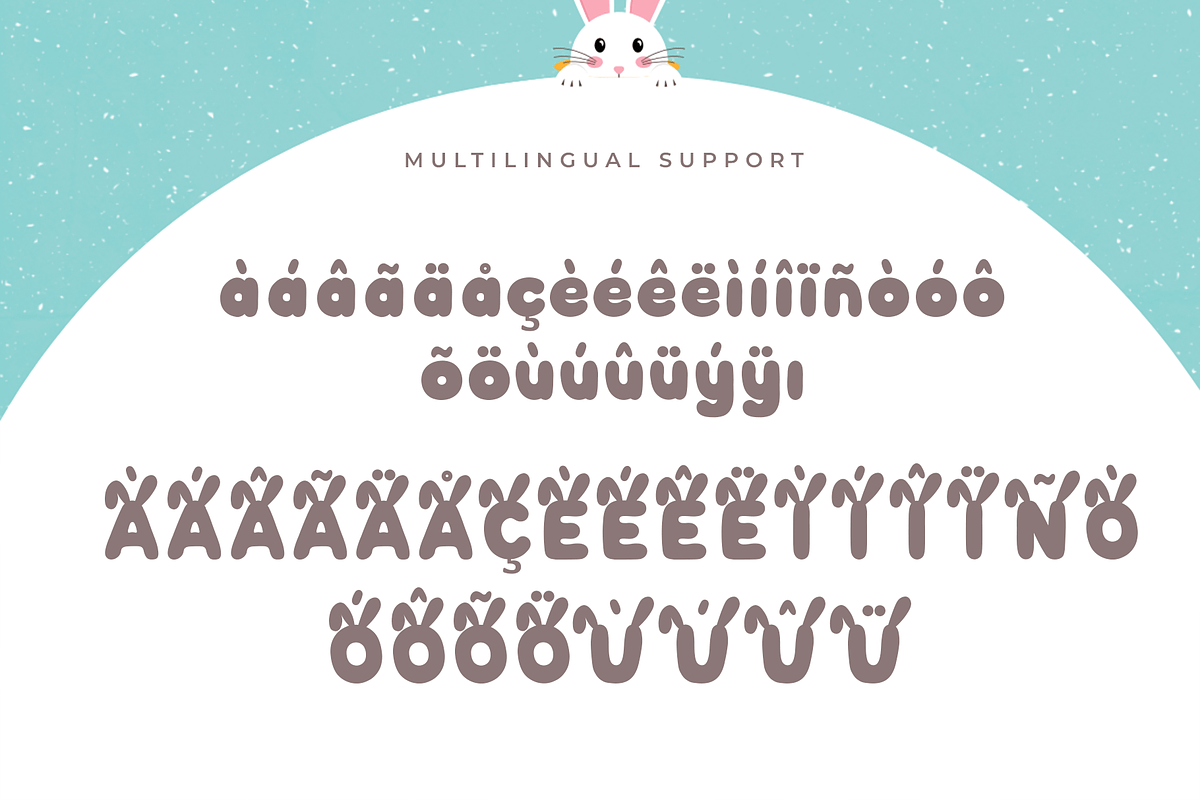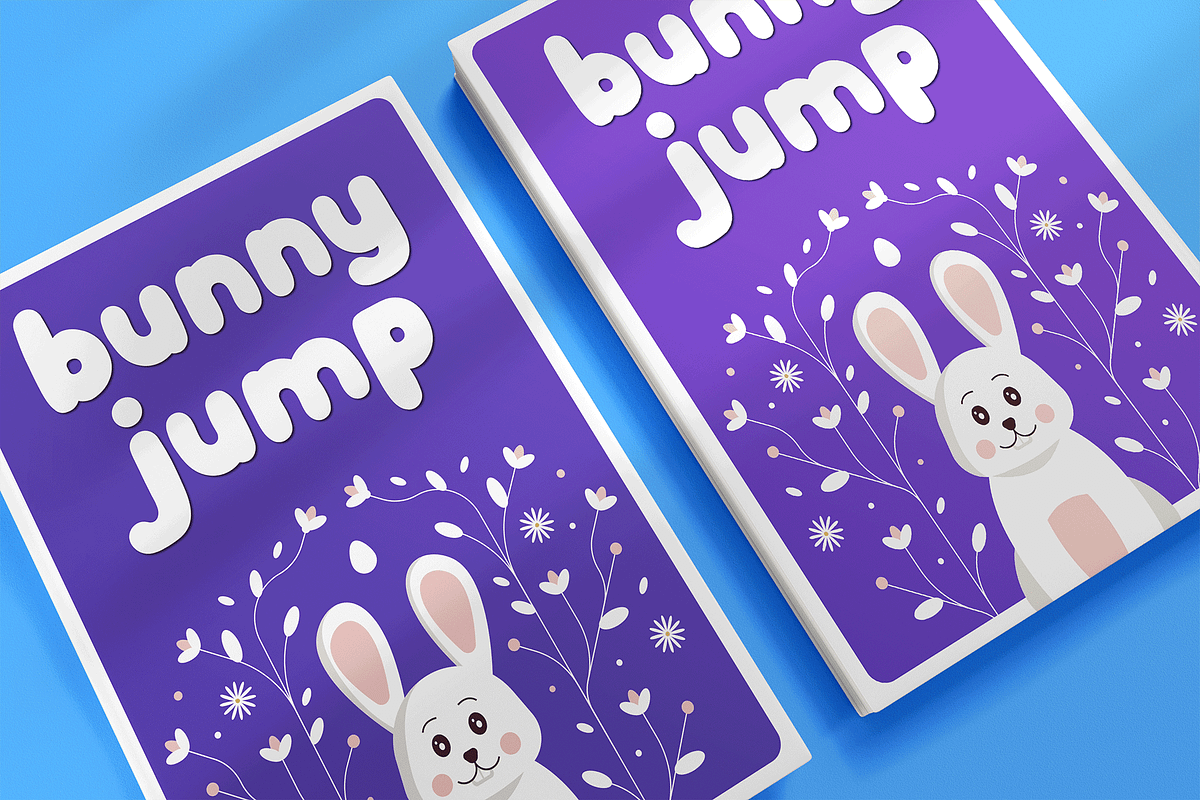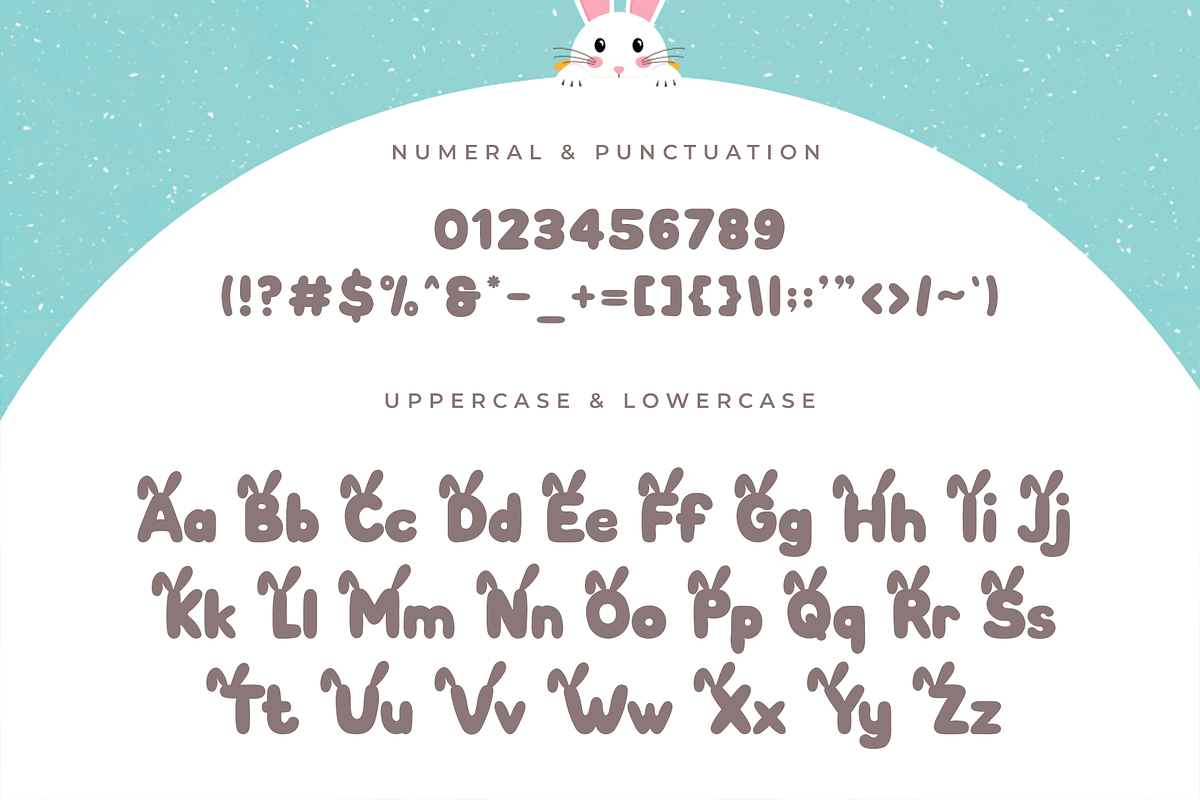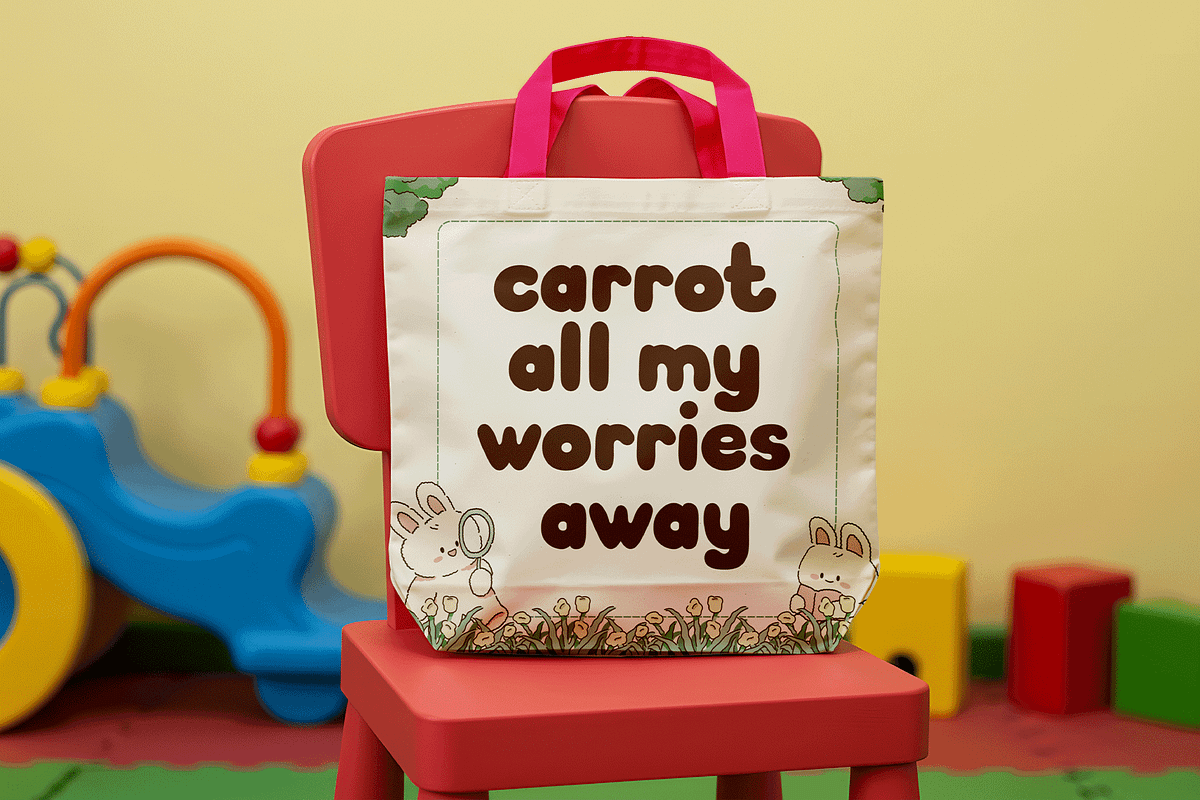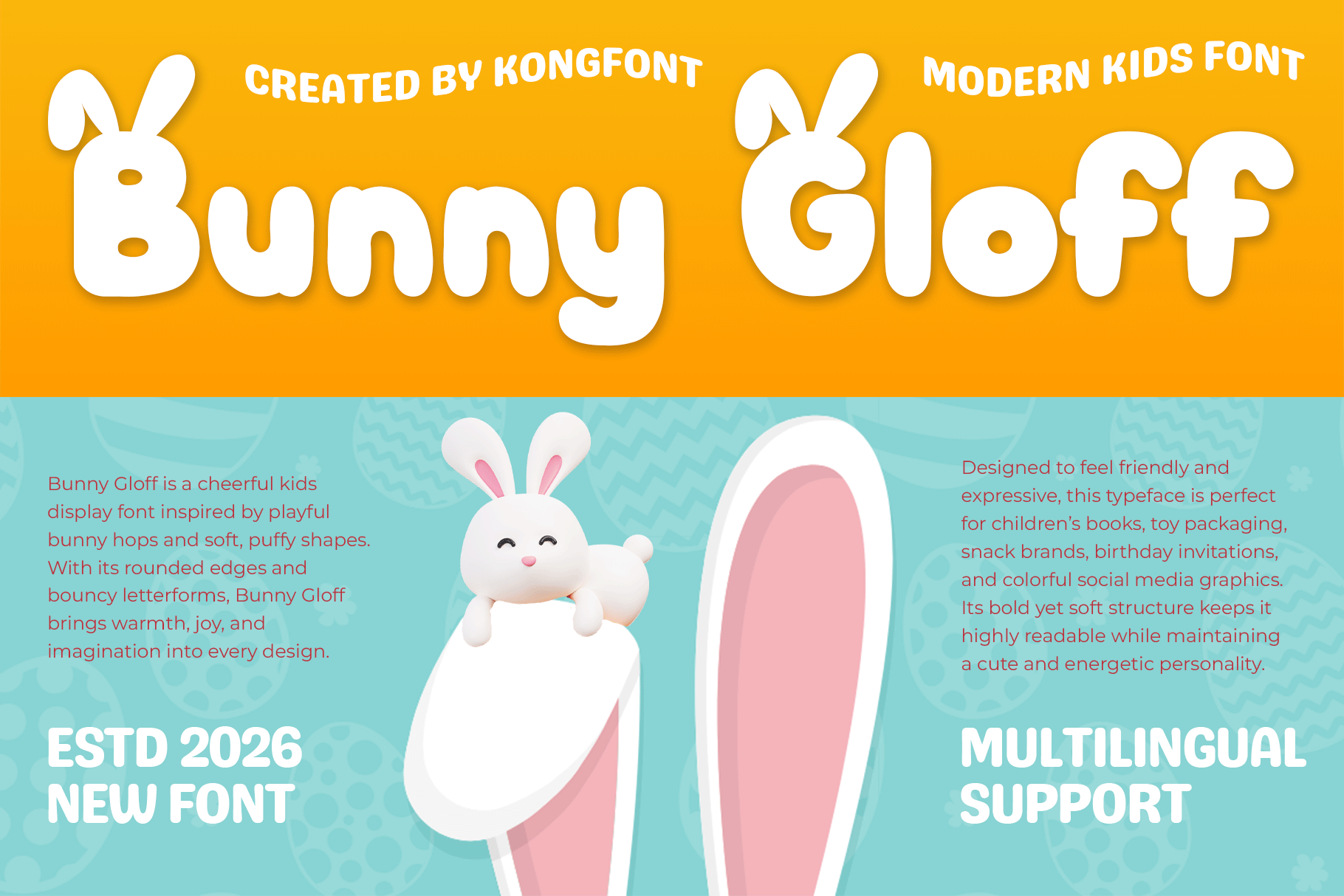
Bunny Gloff – Modern Kids Font
Bunny Gloff is a modern kids font filled with fun, charm, and cheerful personality. Designed with rounded shapes, soft curves, and lively character forms, this typeface brings warmth and excitement to any children focused design.
Perfect for kids’ books, story titles, toy packaging, birthday invitations, classroom materials, cartoon branding, YouTube thumbnails, and playful merchandise, Bunny Gloff creates a friendly and inviting atmosphere while staying clear and easy to read.